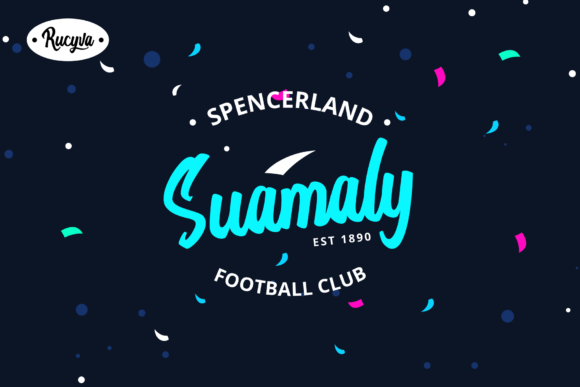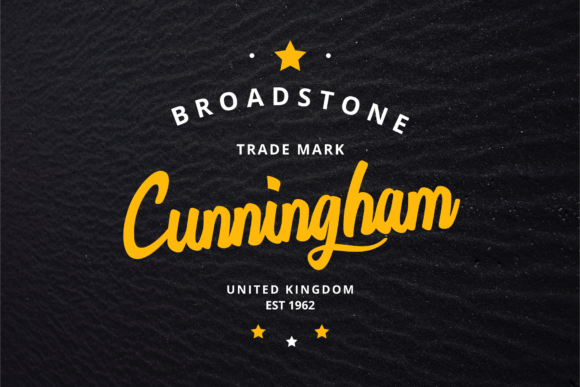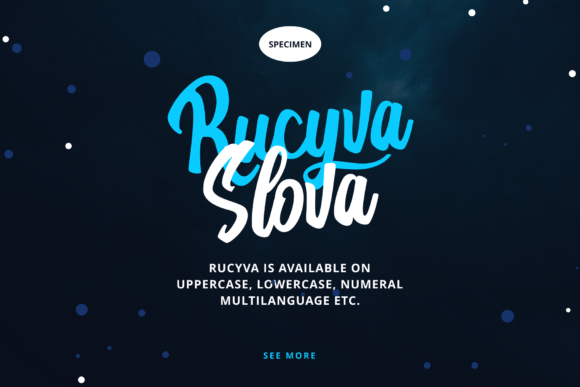
Introduction to Rucyva Slova Font
Have you ever found yourself staring at a blank canvas, searching for the perfect font to bring your creative project to life? It’s that moment of frustration and excitement when the right design resource can make all the difference. For designers, finding the perfect font can be a game-changer, and that’s exactly what the Rucyva Slova Font offers.
With its curvy and playful style, the Rucyva Slova Font is a modern handwritten font that’s perfect for graphic design and advertising needs. Whether you’re designing logos, menus, posters, magazines, or even t-shirts, this font is sure to add a touch of personality and whimsy to your work.
Key Features of Rucyva Slova Font
- High-quality design resource suitable for creative projects requiring unique typography.
- Designed with a modern aesthetic, featuring a unique and creative font style that sets it apart from other fonts.
Honest Review: Rucyva Slova Font
I recently had the chance to work with the Rucyva Slova Font, and I must say it’s been a pleasant experience. This font is perfect for designers looking for a unique touch in their creative projects.
- ✨ One of the standout features of this font is its high quality design, making it suitable for various design applications.
- ✨ The font also comes with a transparent background, allowing for seamless integration into your design resource.
- ⚠️ The font may not be suitable for complex or large-scale designs due to its limited character set.
- ⚠️ Some users may experience difficulties in adjusting the font size or style.
Overall, I’m impressed with the Rucyva Slova Font’s design and versatility. While it may not be perfect for every design project, it’s an excellent choice for those looking for a unique and high-quality font to add a creative touch to their work.
Getting the Most Out of Rucyva Slova Font
To get the most out of this font, use it in combination with other design elements, such as images and graphics. Experiment with different font sizes, colors, and styles to create unique and visually appealing designs.
The Rucyva Slova Font is commonly used in creative projects, such as graphic design, branding, and digital art. Its high-quality design and transparent background make it an excellent choice for designers looking for a versatile and stylish font.